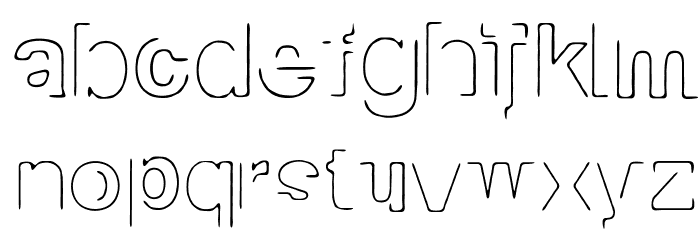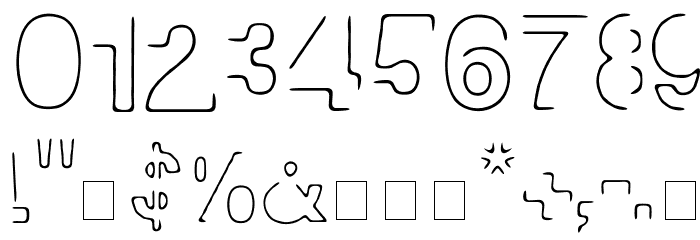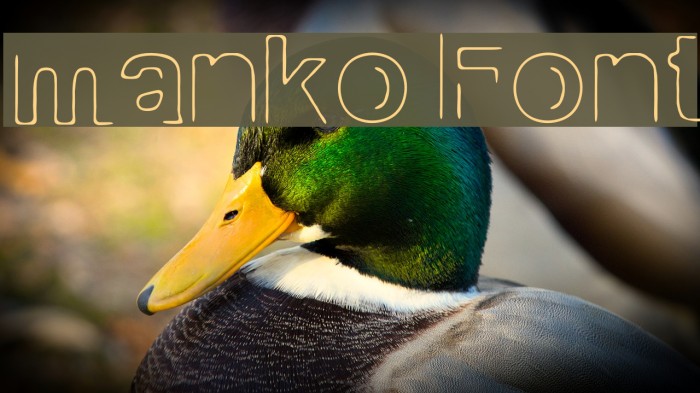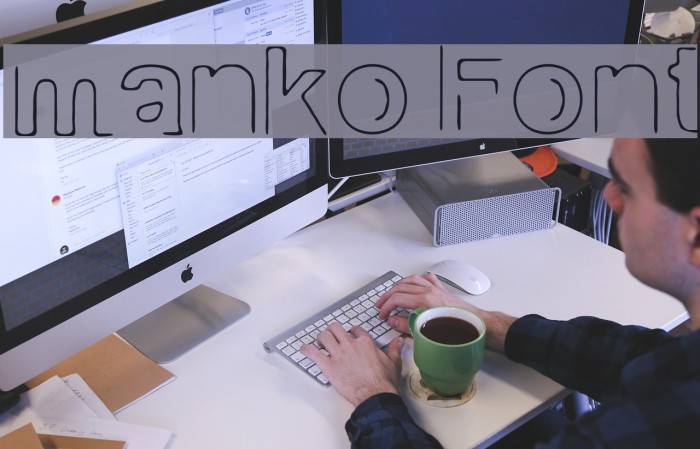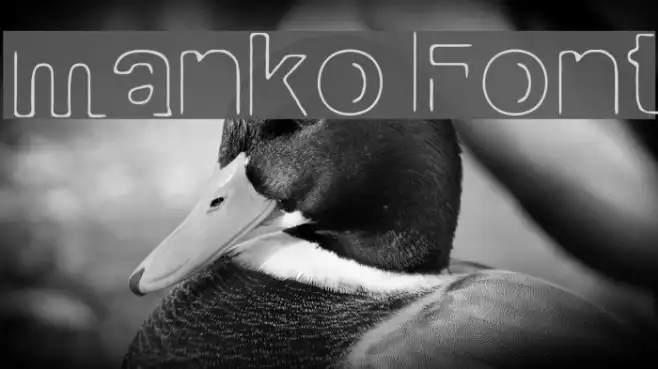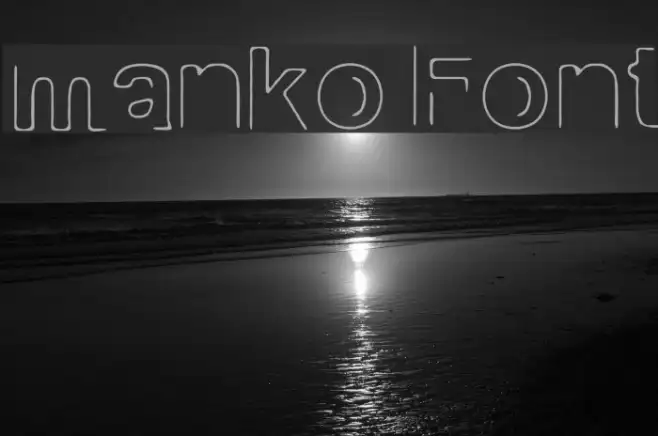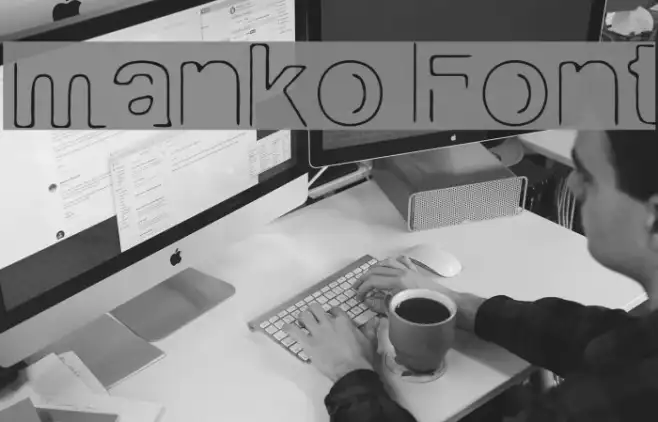
manko Font
This font features a unique and modern design with a futuristic flair. The characters are outlined with a thin, consistent stroke, giving them a hollow appearance. The uppercase letters have a geometric structure with sharp angles and straight lines, while the lowercase letters maintain a similar style but with more curves and fluidity. Numbers are stylized with distinctive shapes, and the special characters follow the same design principles, adding a cohesive look to the entire set. The font's minimalistic and clean design makes it suitable for creative and contemporary projects.
A modern, outlined font with geometric and futuristic elements.
- Proposed Projects: Ideal for branding, posters, digital art, and modern web design.